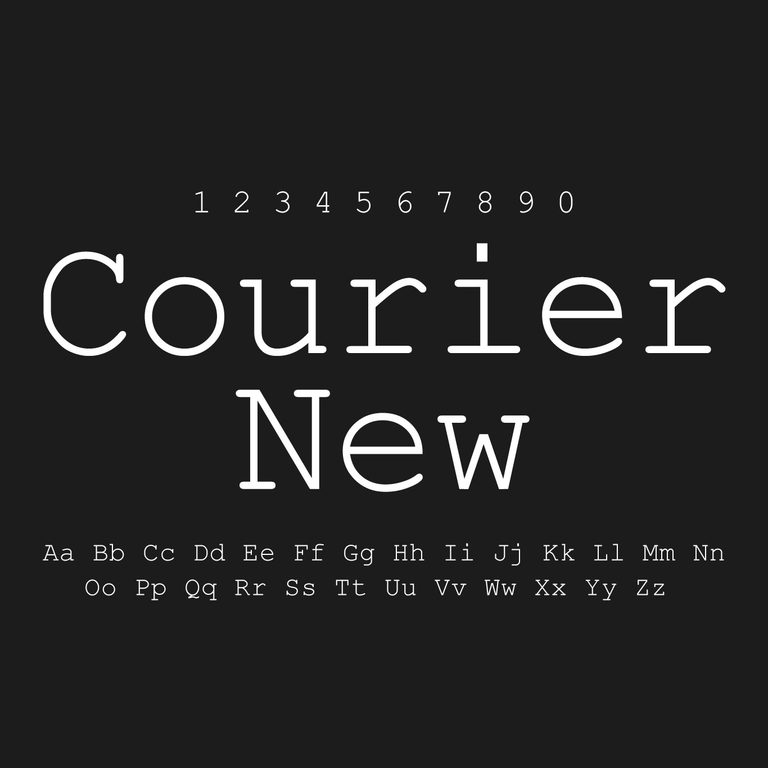
The spacing works like a typewriter. An “i” takes up exactly as much room as an “M”. That fixed rhythm is still common in screenplays, plain text and layouts built around aligned characters.
Designer: Howard Kettler
Courier New is based on Courier, which Howard “Bud” Kettler designed for IBM in the 1950s.
Microsoft later brought Courier New to Windows. From there it became a familiar choice for scripts, plain-text files, tables and early programming work, helped by its fixed-width spacing.
Design Notes
Courier New has wide characters, slab serifs and fairly light strokes. Courier New gives narrow and wide letters the same character width.
That mechanical spacing gives the font its typewriter character. Screenplays are still one of the places where Courier New appears most often. The same fixed spacing also suits code samples, tables and other text that depends on exact alignment.
Courier, Courier Prime, Liberation Mono and Nimbus Mono are close alternatives. Courier Prime keeps the classic typewriter structure but was redrawn with screenwriting and modern text use in mind.